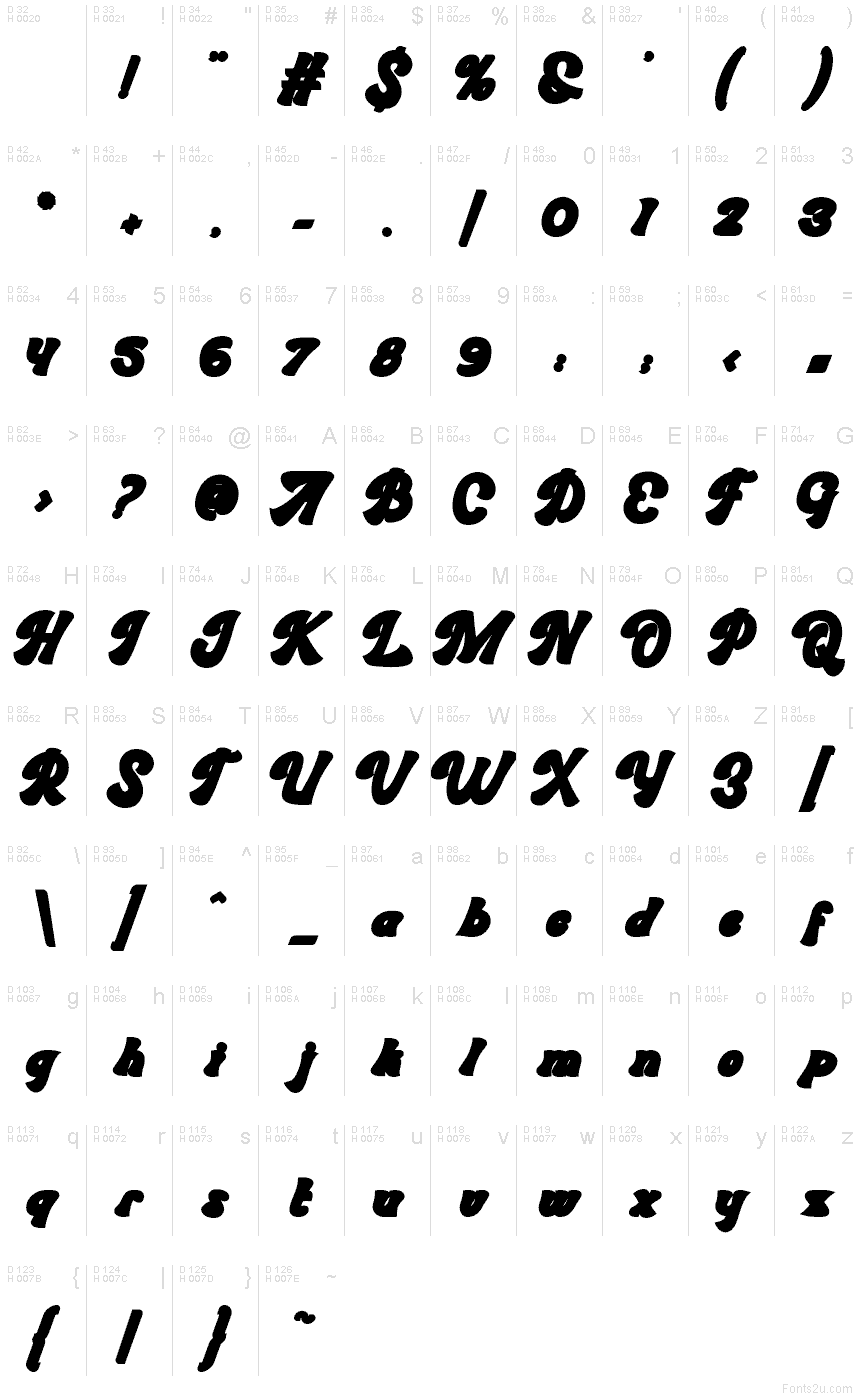
Sweet Joys Outline
Sweet Joys Outline font by PutraCetol Studio is a delightful brush font with bold strokes that seamlessly transition into beautiful cursive elements. It holds a retro appeal, giving off an overall casual and relaxed vibe, perfect for projects that need to make their audience feel at ease. The light presence also means great readability.
Use this cursive font for logos, posters, greeting cards, bookmarks, branding and packaging needs. This free brush font is equally great when used on business cards and invitations; it gets the message across while keeping the design clean.